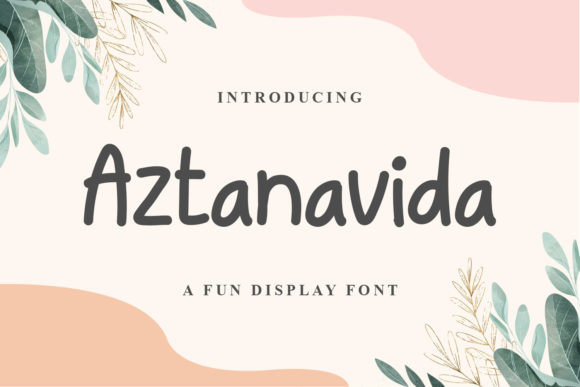
The Ultimate Guide to Aztanavida Font: A Fun Display Font for Creative Projects
I’ll never forget the time I was working on a wedding design project, and my client asked me to create a custom logo that would match her quirky and playful personality. I spent hours browsing through font libraries, but nothing seemed quite right. That’s when I stumbled upon Aztanavida Font, and it instantly became the perfect fit. In this article, I’ll share my experience with Aztanavida, its features, and how to make the most of it in your creative projects.
A Personal Review of Aztanavida Font
- ✨ Unique and playful design: Aztanavida has a distinctive handwriting style that’s perfect for adding a personal touch to your designs.
- ✅ Highly versatile: This font is suitable for a wide range of projects, from branding and logos to social media posts and product packaging.
- 💕 Cute and feminine vibe: Aztanavida’s playful and whimsical design makes it ideal for projects that require a touch of sweetness.
While Aztanavida is an amazing font, there are a few things to keep in mind:
- ⚠️ Limited use in formal contexts: Due to its playful nature, Aztanavida might not be the best choice for formal or professional projects.
- 🤔 Some letters may require manual kerning: As with any font, you might need to adjust the kerning for certain letter combinations to achieve optimal results.
The Backstory of Aztanavida Font
Aztanavida was designed by a talented typographer who wanted to create a font that would capture the essence of playful, handwritten text. Inspired by the beauty of imperfect handwriting, Aztanavida’s creator aimed to craft a font that would add a personal touch to any design project. While the font’s exact origin story might be fictional, its charm and character are undeniable.
Q: What type of projects is Aztanavida suitable for?
A: Aztanavida is perfect for creative projects that require a playful and personal touch, such as branding, logos, social media posts, product packaging, and more.
Q: Does Aztanavida support OpenType features?
A: Yes, Aztanavida supports OpenType features, including glyphs and stylistic alternates. You can access these features in compatible design software like Adobe Creative Cloud.